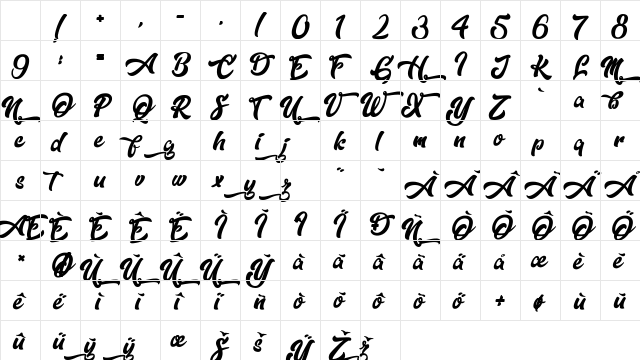
Dopestyle is a composed and adaptable typeface that performs quietly and consistently across a wide range of design contexts.
Pro Tip: Use Dopestyle in both headline and body roles to test its range before committing to a single application.